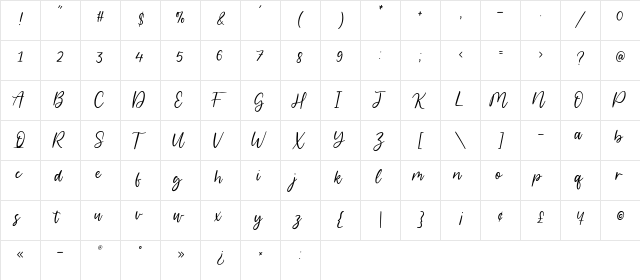
Barkeliy Regular Font Preview
Barkeliy Regular
Barkeliy Regular Font Details
| Designer | Balpirick Studio |
Design Context for Barkeliy Typeface
Barkeliy is a composed and adaptable typeface that performs quietly and consistently across a wide range of design contexts.